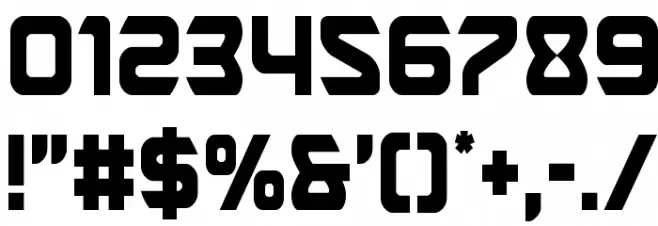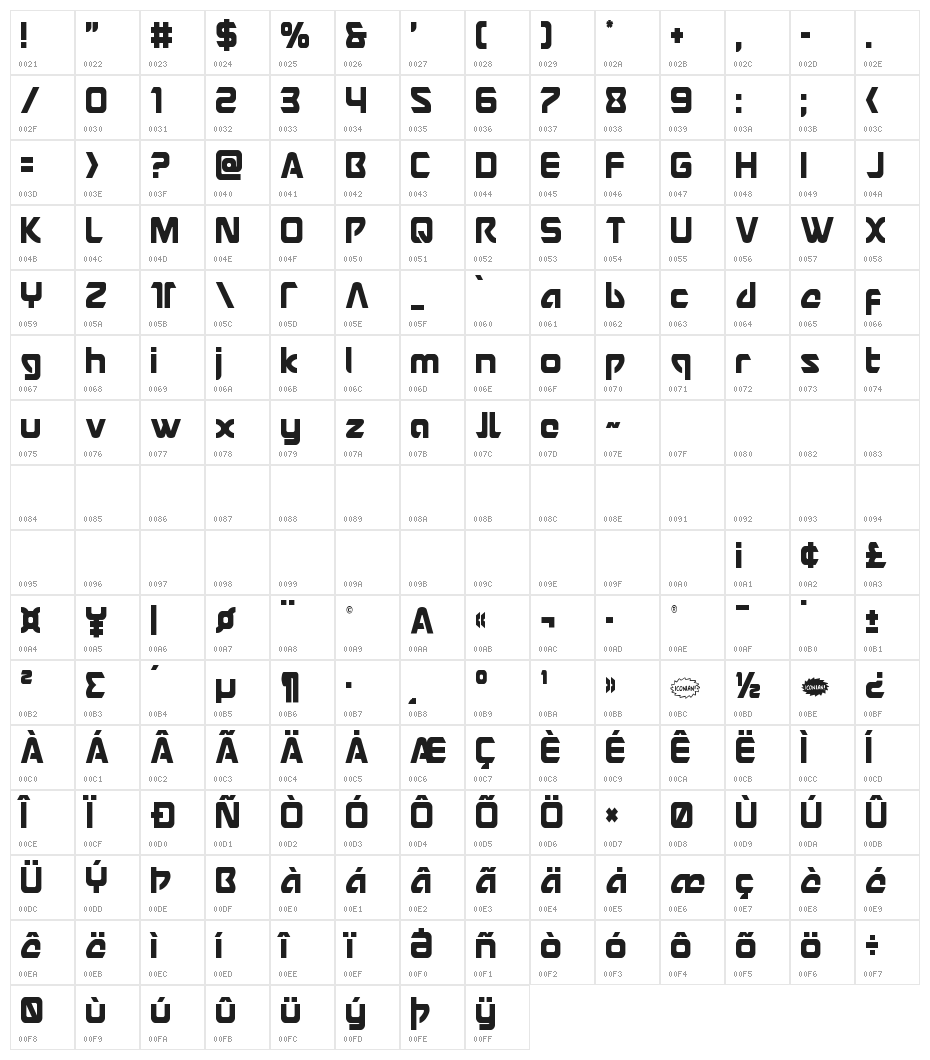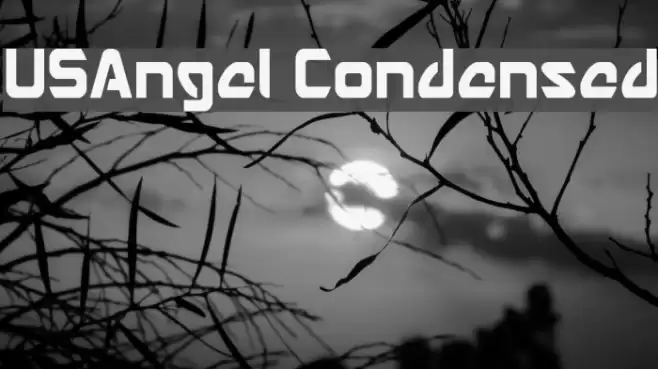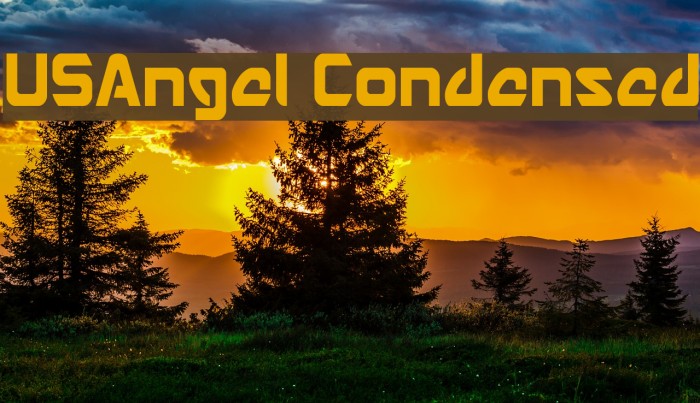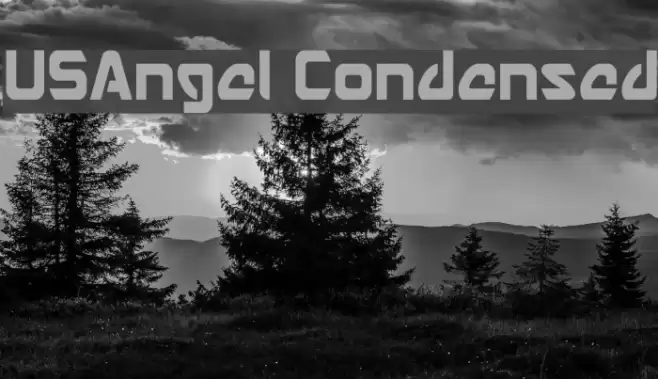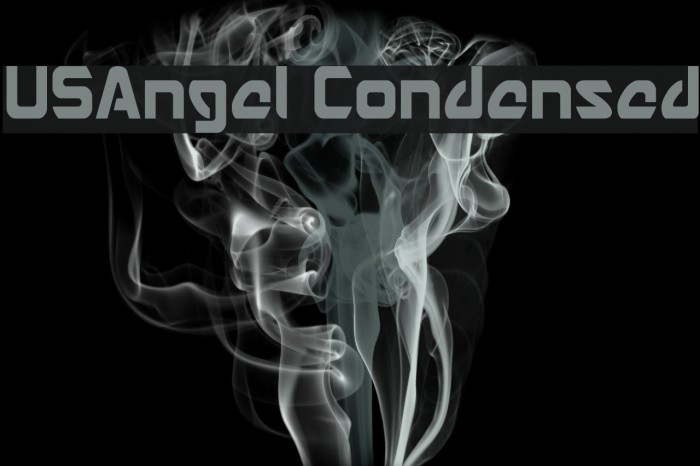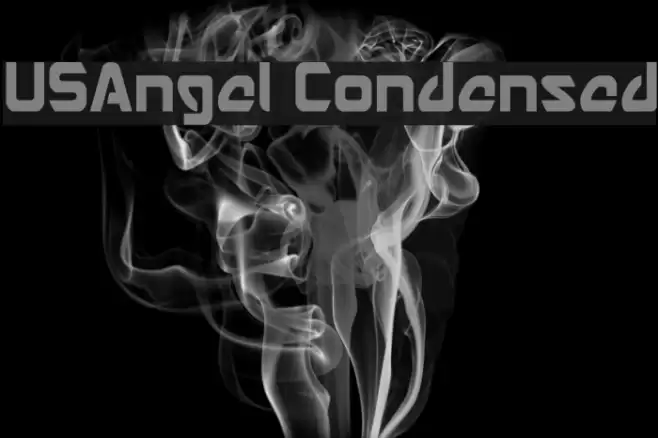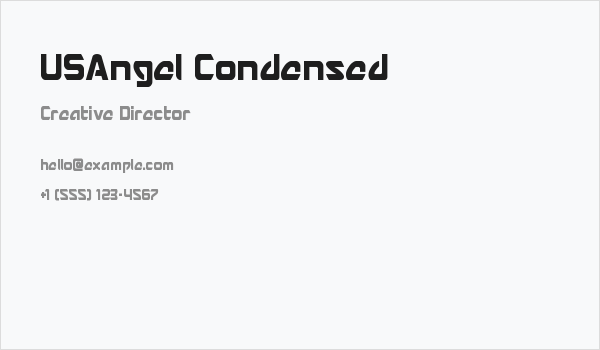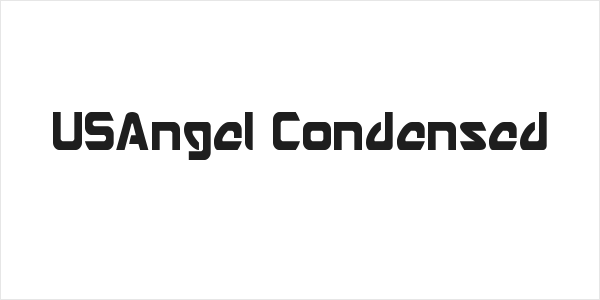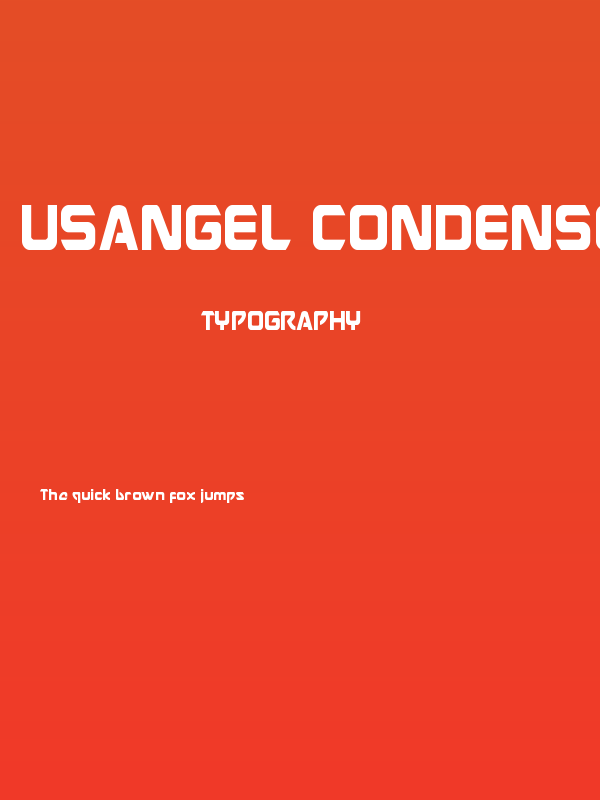
USAngel Condensed Font
USAngel Condensed Description
This font features a bold and geometric design with a distinctly modern and futuristic aesthetic. The characters are condensed, giving them a compact and efficient appearance. The uppercase letters are uniform in height, while the lowercase letters maintain a consistent baseline, enhancing readability. The numerals are clear and well-defined, matching the overall style of the alphabet. Special characters are designed with the same boldness and geometric precision, ensuring a cohesive look across all glyphs. The font's strong lines and sharp angles make it suitable for impactful and attention-grabbing designs.